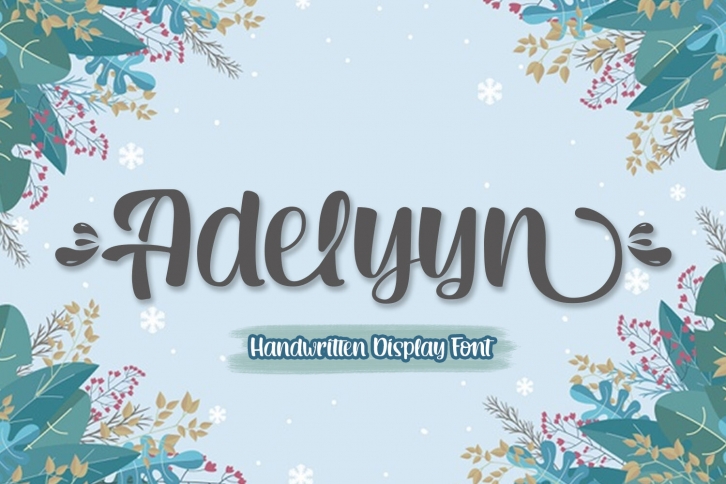
Adelyyn is a modern display font created by Mevstory Std with contextual alternate features. It is perfect for branding, wedding invites and cards. It includes a full set of uppercase and lowercase letters, numerals, a large range of punctuation and ligatures. All lowercase letters include ending swashes, which makes the font look fabulous!